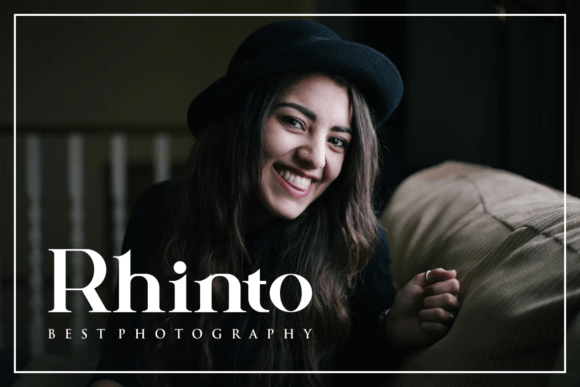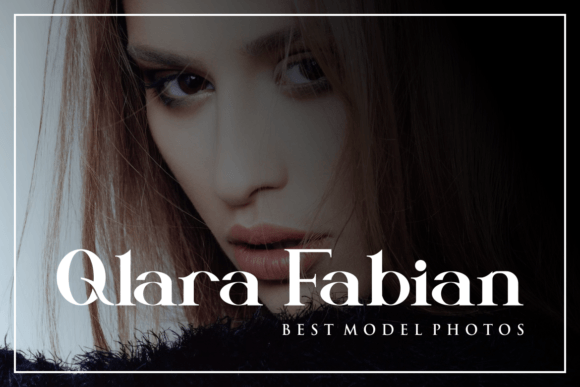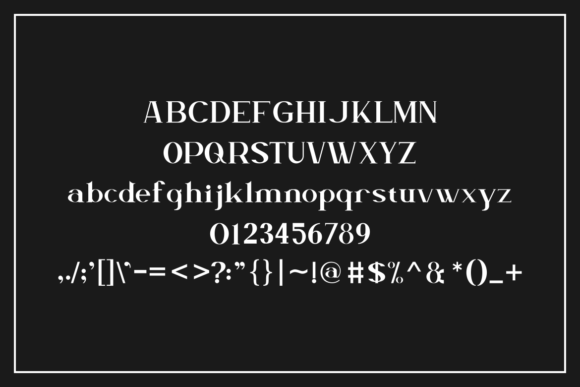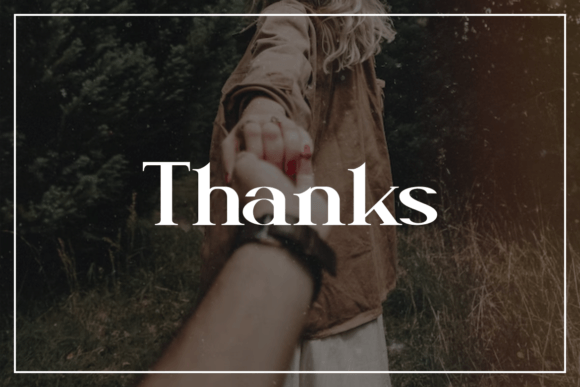
Introduction to Ropland Font
Imagine you’re brainstorming ideas for your latest creative project, and you need the perfect font to make it stand out. You scroll through your design resources, searching for that one font that captures the essence of your vision. And then, you stumble upon it – Ropland Font. Its bold and authentic serif style is sure to leave a lasting impression on your audience.
As a designer, you know the importance of having high-quality design resources at your fingertips. With Ropland Font, you can take your branding projects to the next level, from logos to t-shirt printing, and even esports designs. Whether you’re working on a free download or a paid project, this versatile font is sure to deliver. Plus, its transparent background makes it easy to use in a wide range of contexts.
But what truly sets Ropland Font apart is its ability to elevate any creative project. With its unique style and high-quality design, it’s no wonder why designers are falling in love with this font. In this article, we’ll dive deeper into the world of Ropland Font and explore its many uses and benefits.
Key Features of Ropland Font
- High-quality, unique design perfect for creative projects and design resources.
- Transparent background, allowing for seamless integration into various design elements and backgrounds.
- Font size: 16-24 points, suitable for use in a variety of design contexts, from small text to headings.
- High-resolution design, with a minimum resolution of 300 DPI, ensuring crisp and clear text in printed materials.
- Unique, hand-drawn style, setting it apart from other fonts and making it a standout design resource.
Honest Review: Ropland Font
I recently had the chance to work with the Ropland Font, and I’m excited to share my thoughts on this design resource. As a designer, I’m always on the lookout for high-quality fonts that can elevate my creative projects.
One of the things that stood out to me about the Ropland Font was its versatility. It’s a great choice for a variety of design applications, from logos to body text. The font is highly legible, making it easy to read, even at smaller sizes. ✨
The Ropland Font also comes with a transparent background, which is a huge plus for designers who like to customize their designs. This feature allows for seamless integration with other design elements, making it a valuable asset for any design project.
Here are some of the key features that I liked about the Ropland Font:
- Transparent background for customization
- Legible and versatile
Of course, no font is perfect, and the Ropland Font has some limitations. One thing that I noticed was that the font can look a bit too bold in certain situations. It’s not a deal-breaker, but it’s something to keep in mind when using the font in your design. ⚠️
Overall, I’m impressed with the Ropland Font. It’s a solid choice for designers looking for a high-quality font that can add some visual interest to their creative projects. Whether you’re working on a logo, a website, or any other design project, the Ropland Font is definitely worth considering.
How to Use Ropland Font
Using Ropland Font in Adobe Photoshop/Illustrator
For a more advanced design, import the Ropland Font into Adobe Photoshop or Illustrator. This design resource can be used to create intricate typography, graphics, or logos. The font’s high quality and transparent background make it easy to combine with other design elements.
Integrating Ropland Font in PowerPoint/Word
Even for basic presentations or documents, the Ropland Font can add a touch of sophistication. Simply download the font and apply it to your text elements in PowerPoint or Word. This design resource is perfect for titles, headings, or body text.
Tips for Getting the Most Out of Ropland Font
To get the most out of the Ropland Font, experiment with different font sizes, colors, and combinations. This design resource can be used in a variety of creative projects, from business cards to posters.
Common Use Cases for Ropland Font
The Ropland Font is commonly used in creative projects such as branding, marketing materials, and event invitations. Its high quality and transparent background make it perfect for backgrounds, titles, or body text.
Does the Ropland Font have a transparent background?
Yes, the Ropland Font comes with a transparent background, making it easy to use with any design element or background. This feature allows for seamless integration and creative freedom in your design projects. Simply use the font with a transparent layer in your design software to take advantage of this feature.